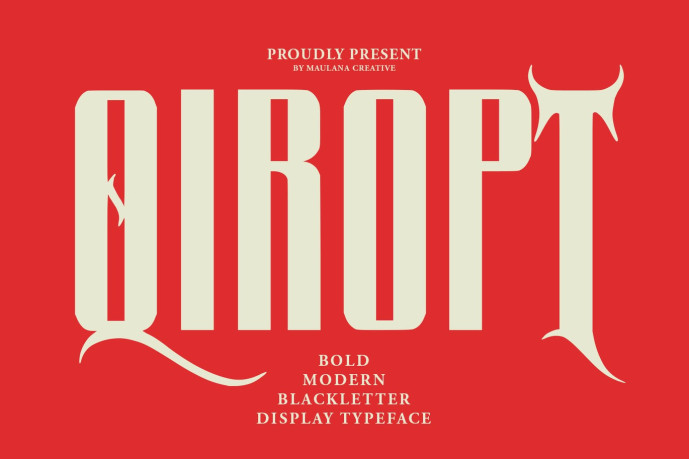
Qiropt Font
Designer: maulanacreative
Qiropt Font a bold modern blackletter typeface designed for maximum visual impact. Fusing the historical aggression of traditional Fraktur with sleek, contemporary geometric lines, Qiropt offers a unique “sharp-meets-smooth” aesthetic.
This display font features tall, condensed letterforms and striking ornamental alternates that give your text a custom, hand-lettered feel. It is perfectly suited for heavy metal aesthetics, tattoo-inspired branding, edgy labels, horror movie, and dramatic album. Whether you’re designing for a “Scary Monster” or a “Melody Dramatic,” Qiropt provides the perfect balance of medieval soul and modern grit.